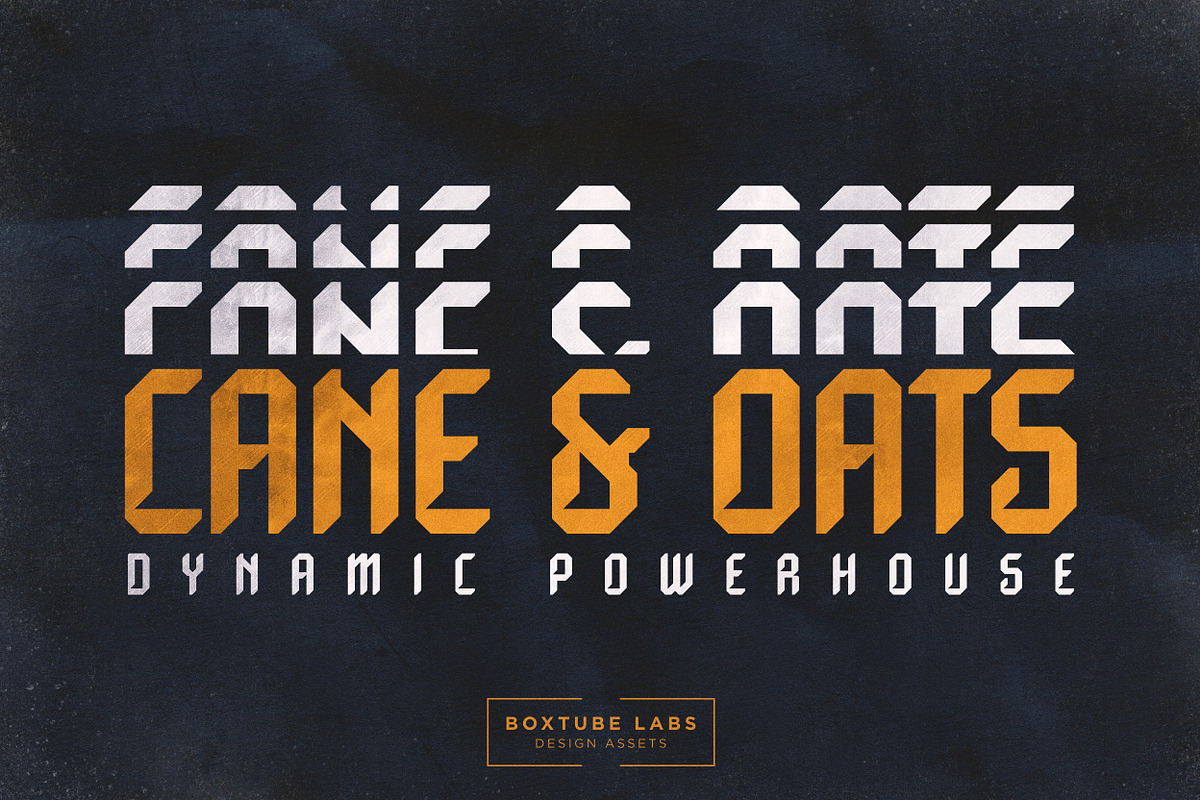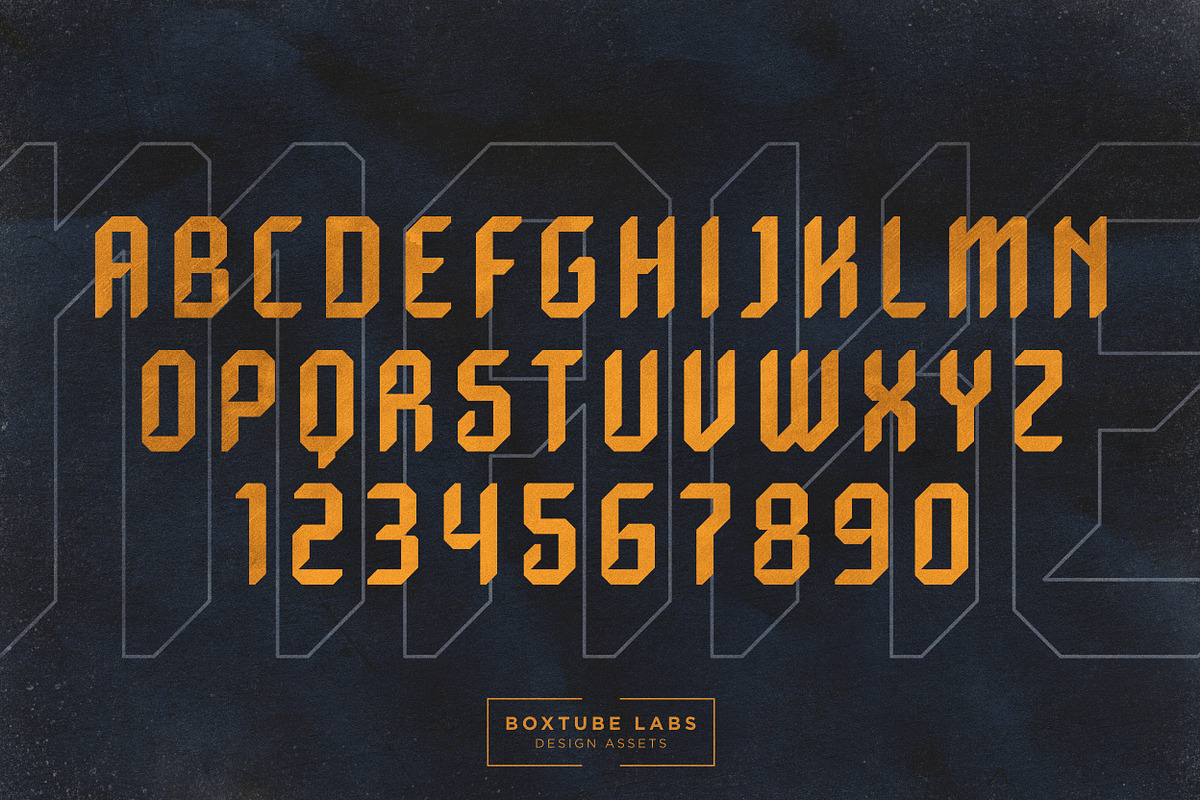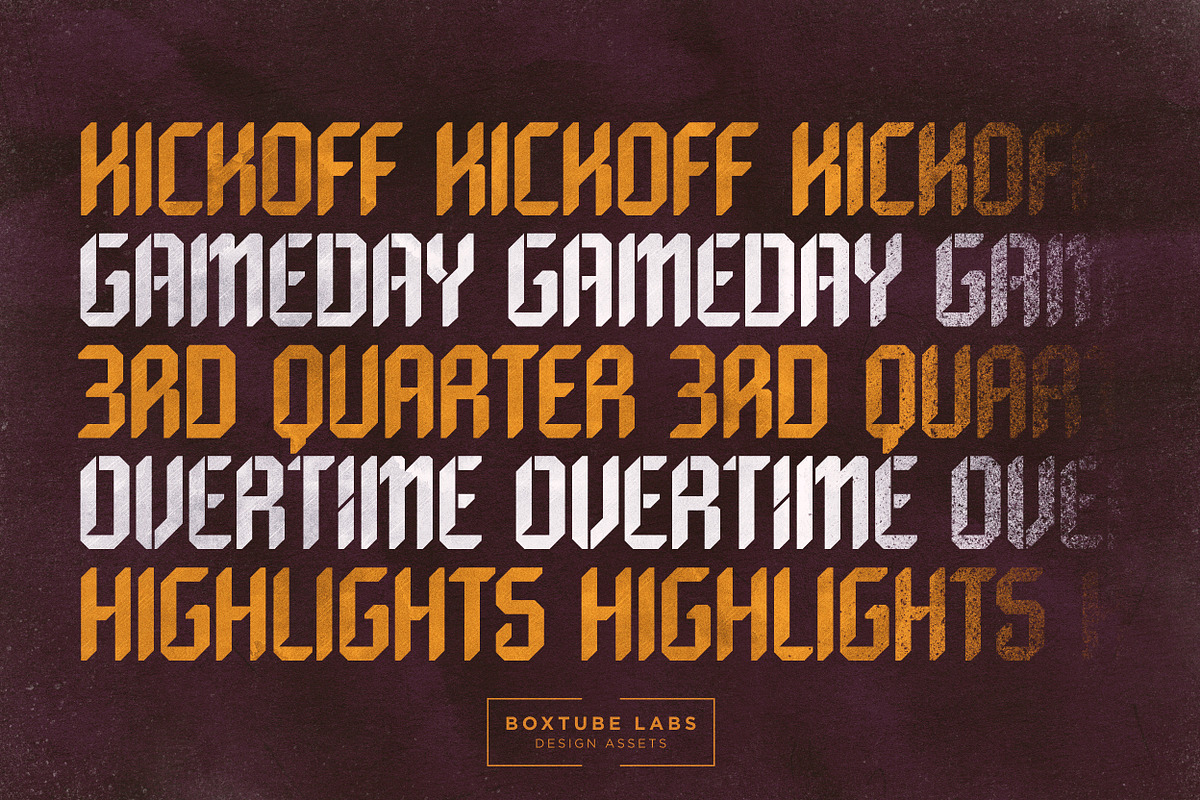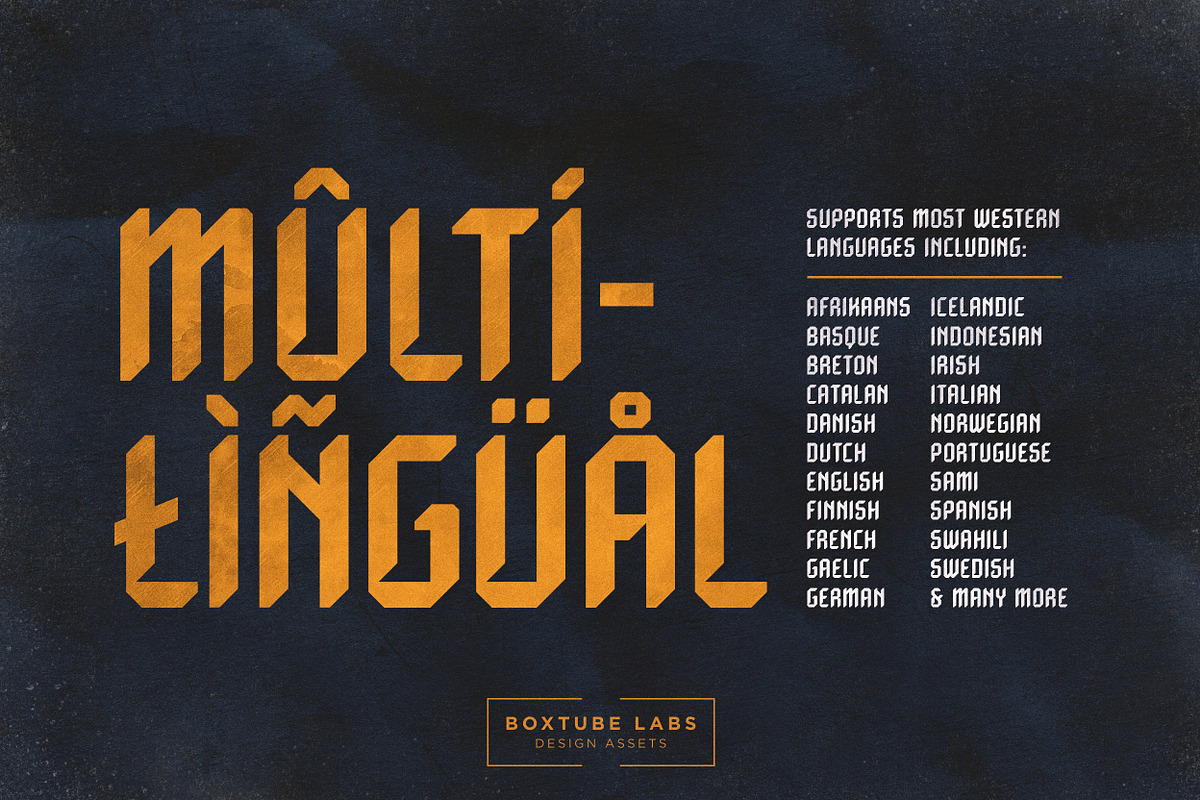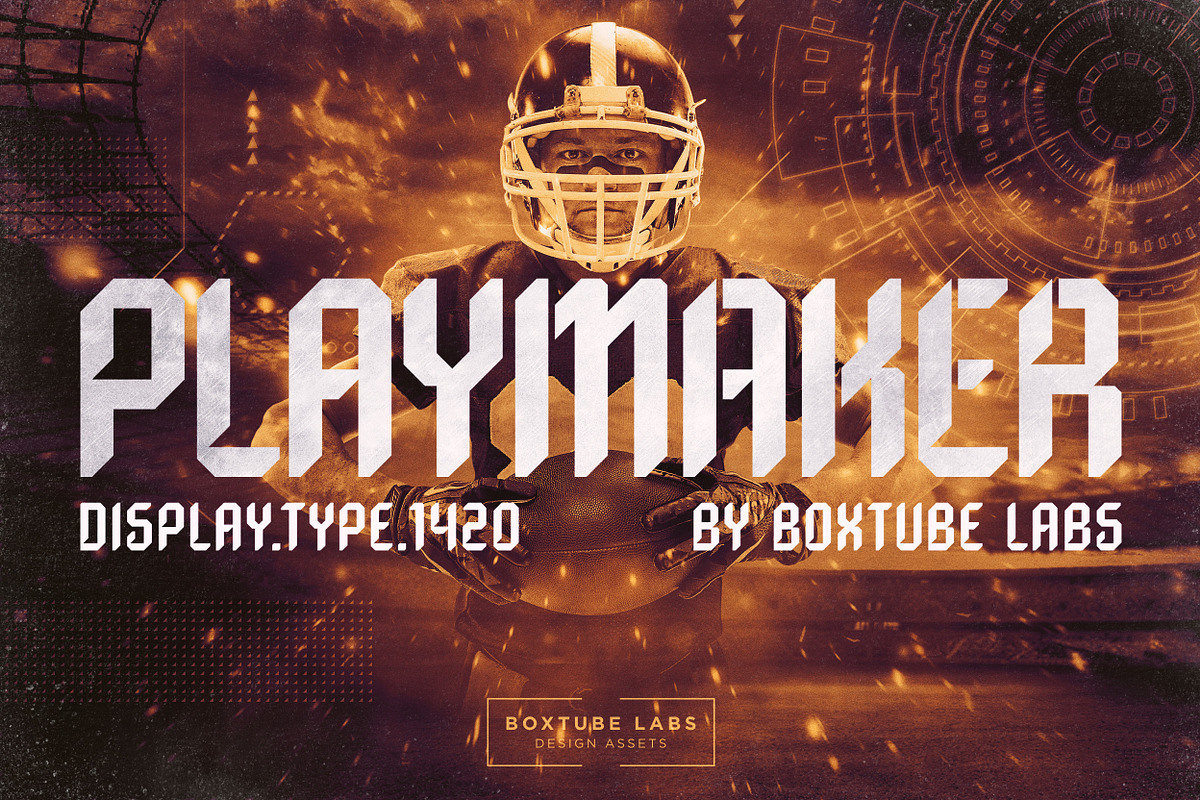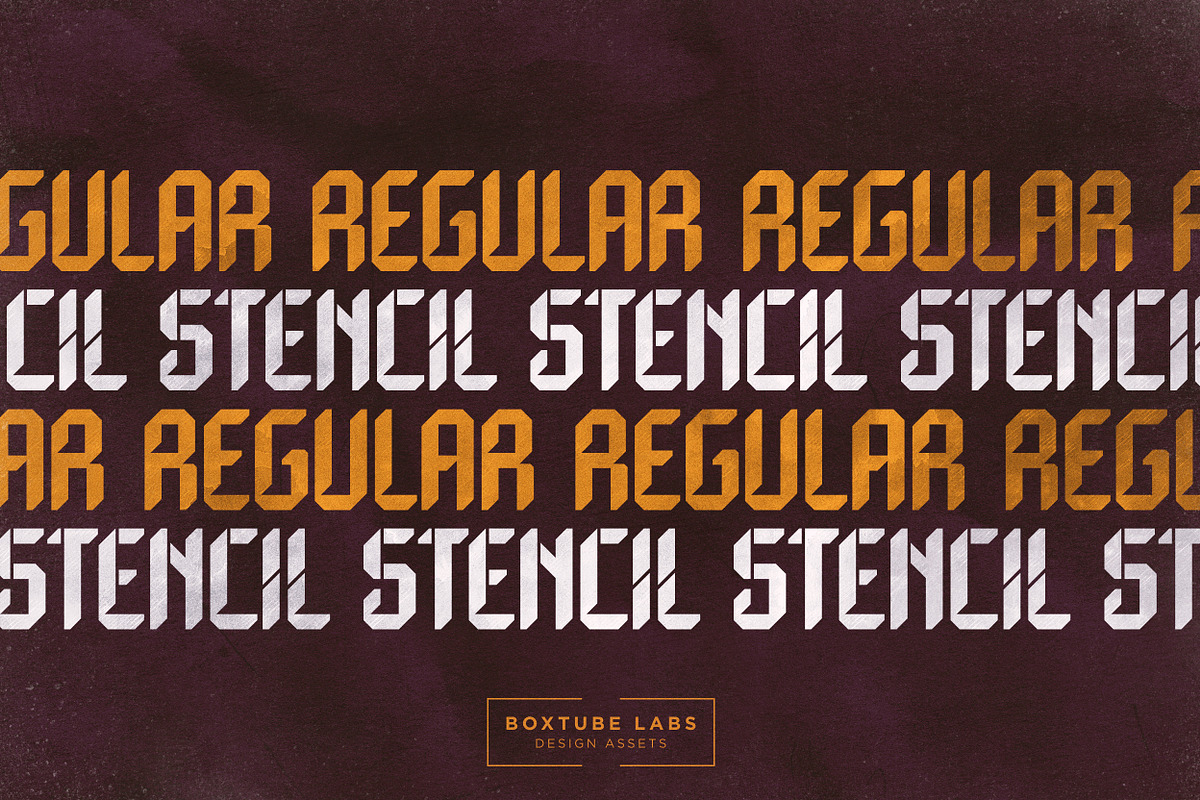
Playmaker - Display Font
Playmaker, noun, /ˈpleɪmeɪkə/ a player in a team game who leads attacks or brings other players on the same side into a position from which they could score.
Playmaker is a blackletter inspired block font system with two styles; Regular & Stencil. It's perfect for brands seeking a unique touch for logotypes and typography. Ideal for sports branding, posters, apparel design, magazine headlines, labels and much more.
Playmaker has support for most western languages including: Afrikaants, Basque, Breton, Catalan, Danish, Dutch, English, Finnish, French, Gaelic, German, Icelandic, Indonesian, Irish, Italian, Norwegian, Portuguese, Sami, Spanish, Swahili and Swedish.
- Playmaker Regular
- Playmaker Stencil